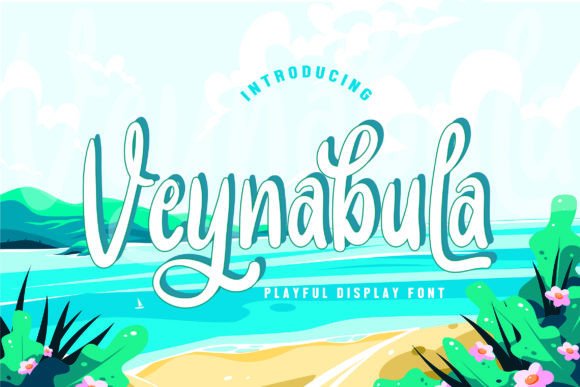
Behold Veynabula, the cursive font that dances across your designs like a vibrant symphony. It's a playful and lively display font, bursting with energy and fun, ready to unleash your creativity.
Unlike conventional fonts, Veynabula's irregular shapes and exaggerated forms create a sense of playfulness and spontaneity, making it perfect for projects that demand a touch of whimsy. Imagine designing posters that pop, invitations that enchant, or children's books that come alive with imagination.
Veynabula's letters, spaced with a sense of freedom, exude a rhythm of their own. They dance and twirl, creating a visual symphony that captivates your audience. It's not just a font; it's an experience, an expression of your creativity, and a celebration of life's joyous moments.
Embrace Veynabula and let your designs burst with delight. Its playful nature will ignite your imagination and transport your audience to a world of pure enchantment. It's the perfect font for adding a touch of joy and excitement to your projects, leaving an unforgettable impression on all who encounter it.
So, dive into the world of Veynabula, let your creativity soar, and let your designs dance with pure delight. Don't settle for ordinary fonts; choose Veynabula and unleash the extraordinary.